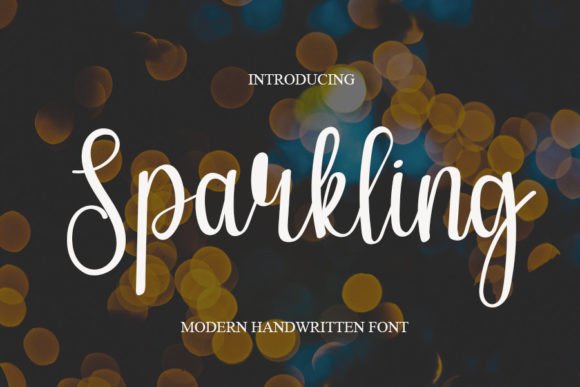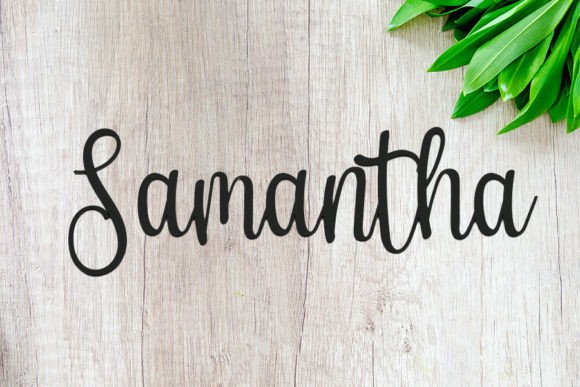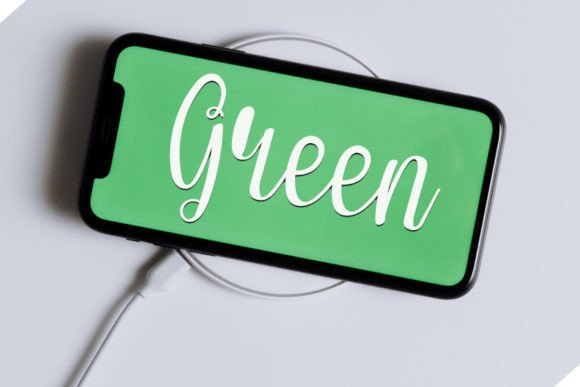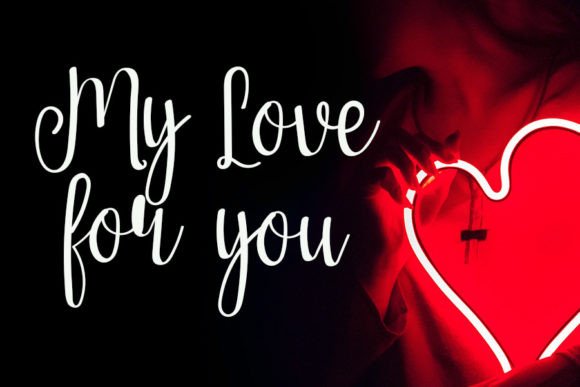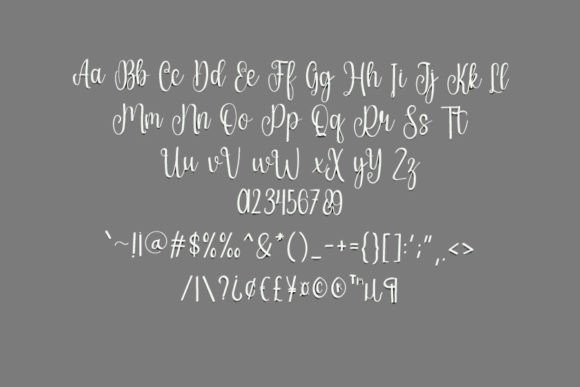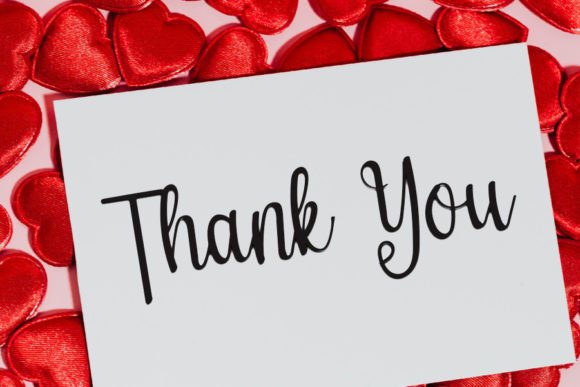
Sparkling Font
About Sparkling Handwritten Font
Sparkling Handwritten Font is a modern and stylish script typeface that blends the timeless beauty of calligraphy with a fresh, contemporary vibe. With smooth, balanced strokes and a spotless design, it brings elegance and creativity to all your projects. Because of its refined structure, Sparkling Handwritten Font is ideal for invitations, packaging, branding, posters, and digital work.
A Modern Typeface with Calligraphic Inspiration
Handwritten fonts are known for their character, and Sparkling Handwritten Font captures that charm with perfection. Its strokes are not too thin and not too thick, giving each letter a natural balance. In addition, the calligraphic influence ensures a sophisticated and professional look without losing its approachable style.
Special occasions require fonts with personality, and Sparkling HandwrittenFont is a perfect fit. For example, it enhances wedding invitations, thank-you notes, and seasonal stationery with handwritten elegance. Moreover, it adds warmth and charm to birthday cards, menus, and event flyers, making every design feel unique.
A Script Typeface for Branding and Packaging
Businesses and designers can also benefit from Sparkling HandwrittenFont. It works beautifully on product labels, boutique logos, and promotional materials. Furthermore, it adapts seamlessly to magazine layouts, social media graphics, and advertising campaigns. When paired with clean sans serif fonts, it creates a stylish, balanced identity.
Flexible Across Print and Digital Media
Another advantage of Sparkling HandwrittenFont is its adaptability across mediums. In print, it shines on brochures, posters, and merchandise. Digitally, it integrates smoothly into websites, blogs, and online shops. Since it maintains clarity at any size, it performs well in both small details and large-scale banners.